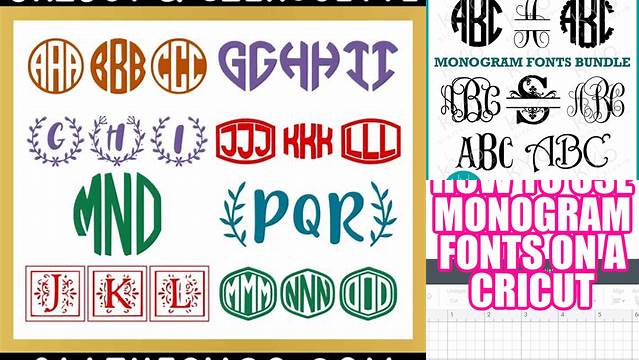
Find The Perfect Monogram Fonts For Cricut & DaFont (Free!)
Hey everyone! 👋 Are you ready to take your crafting game to the next level? If you're anything like me, you're always on the lookout for cool ways to personalize your projects. And that's where monogram fonts come in! They're the secret weapon for adding a touch of elegance, sophistication, or just plain fun to anything you create with your Cricut machine. Now, if you're new to the world of monogramming, you might be wondering where to even begin. Don't worry, because I'm here to guide you through the process of finding the perfect free monogram fonts for your Cricut projects, especially those you can snag from DaFont. We will explore the best options available, tips on how to use them, and some inspiring project ideas to get your creative juices flowing. Let's dive in!
What are Monogram Fonts and Why You Need Them
So, what exactly are monogram fonts? Simply put, they're fonts specifically designed to create monograms – those stylish combinations of initials that represent a person, a couple, or even a brand. Think of them as the ultimate in personalization! Monogram fonts come in a variety of styles, from classic and traditional to modern and quirky. They can be used on everything from mugs and t-shirts to tote bags and wall decor. The beauty of monogram fonts is that they instantly elevate any project, making it feel more polished and custom-made. Whether you're crafting a gift for a friend, creating personalized wedding favors, or just adding a touch of flair to your own belongings, monogram fonts are a must-have in your crafting toolkit.
But why free, you ask? Well, who doesn't love a good deal? There are tons of amazing free monogram fonts out there that are perfect for Cricut projects. They allow you to experiment with different styles, test out your designs, and create a wide range of personalized items without breaking the bank. Plus, using free fonts is a great way to learn the ropes and get comfortable with monogramming before you invest in premium options. DaFont is a fantastic resource for finding these free fonts. It's a website that hosts a massive collection of fonts, many of which are free for personal use (always check the license!). DaFont is super easy to navigate, and you can find all sorts of fonts, so you will certainly find what you are looking for. It's basically a treasure trove for font lovers like us! I will show you some of my favorite monogram fonts from DaFont and how to easily download and use them with your Cricut machine.
Top Free Monogram Fonts from DaFont for Cricut
1. Monogram KK:
This is a classic choice, known for its elegant and timeless design. It features a circular shape with a stylish, slightly ornate design. It's perfect for adding a touch of sophistication to your projects. Monogram KK is ideal for creating monograms on items like wedding favors, stationary, and gifts for loved ones. It has a refined and graceful look that works well with any materials and is simple to utilize, making it a fantastic choice for novices as well as experienced crafters.
2. KG Blank Space:
If you're looking for something a bit more modern and minimalist, KG Blank Space is the way to go. This font offers a clean and contemporary aesthetic, with a simple, uncluttered design that's perfect for those who appreciate a sleek and modern look. It's great for creating monograms on items like phone cases, water bottles, and wall art. KG Blank Space will add a modern touch to any project.
3. Beyond Wonderland:
For a touch of whimsy and fun, you can't go wrong with Beyond Wonderland. This font features a playful and slightly fantastical design, making it perfect for kids' projects or items that need a touch of whimsy. Beyond Wonderland is ideal for creating monograms on items like school supplies, birthday party decorations, and children's clothing. It's easy to use and is a great option for adding a fun touch.
4. Script Fonts:
Script fonts, in general, are a great option for creating monograms. They offer a beautiful and elegant style, with a flowing and graceful look. There are tons of script fonts available on DaFont. They are perfect for creating monograms on wedding invitations, stationary, and gifts for special occasions. Look out for fonts like Black Jack, Great Vibes, and Playlist Script, which provide a delicate and personal touch.
5. Geometric Monogram Fonts:
If you want a modern and geometric monogram, then DaFont has you covered! These fonts provide a trendy and unique look, with a modern and sharp design. They are ideal for monograms on items like mugs, tote bags, and wall art. Look out for fonts like Segmented or Hexagon, which are perfect for a modern touch.